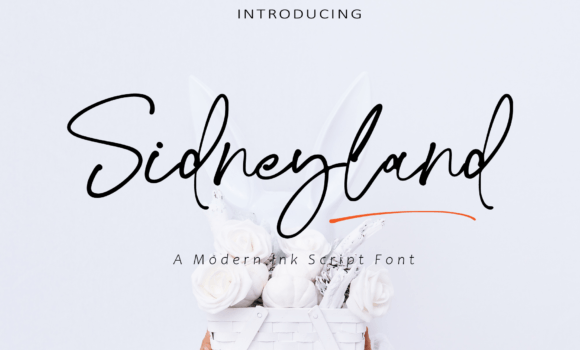
sidneyland
Sidneyland Font - Featured Image
Sidneyland Font – Free Download Introduction to Sidneyland Font Sidneyland is a stylish handwritten script font that exudes elegance and charm with its flowing, graceful curves. 📸 Preview Gallery 6 images 📌 Product Name Sidneyland Font 👤 Author ibrahimastudio 📂